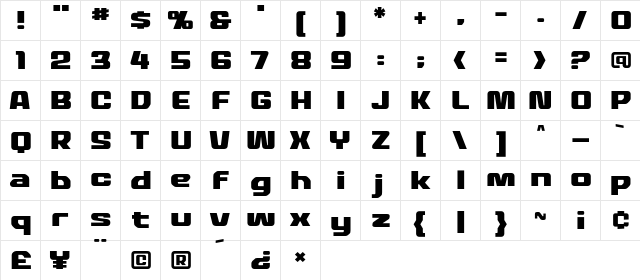
MechEffects Two LC BB Regular
Design Context for MechEffects Two LC BB Typeface
MechEffects Two LC BB offers clean, dependable letterforms without strong stylistic allegiance, making it a practical choice for designers who need flexibility.
Pro Tip: Use MechEffects Two LC BB in both headline and body roles to test its range before committing to a single application.